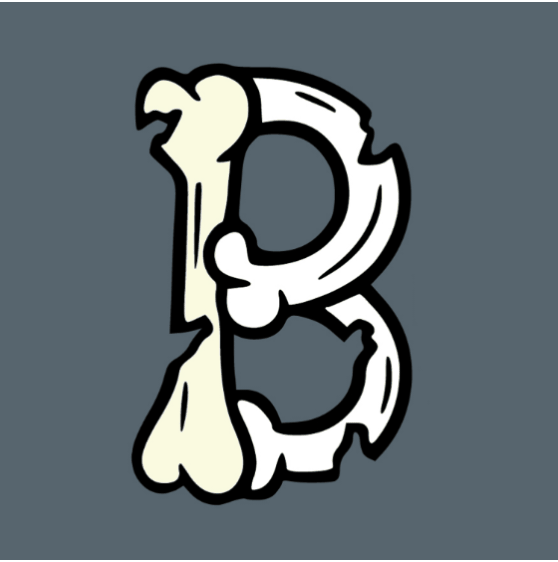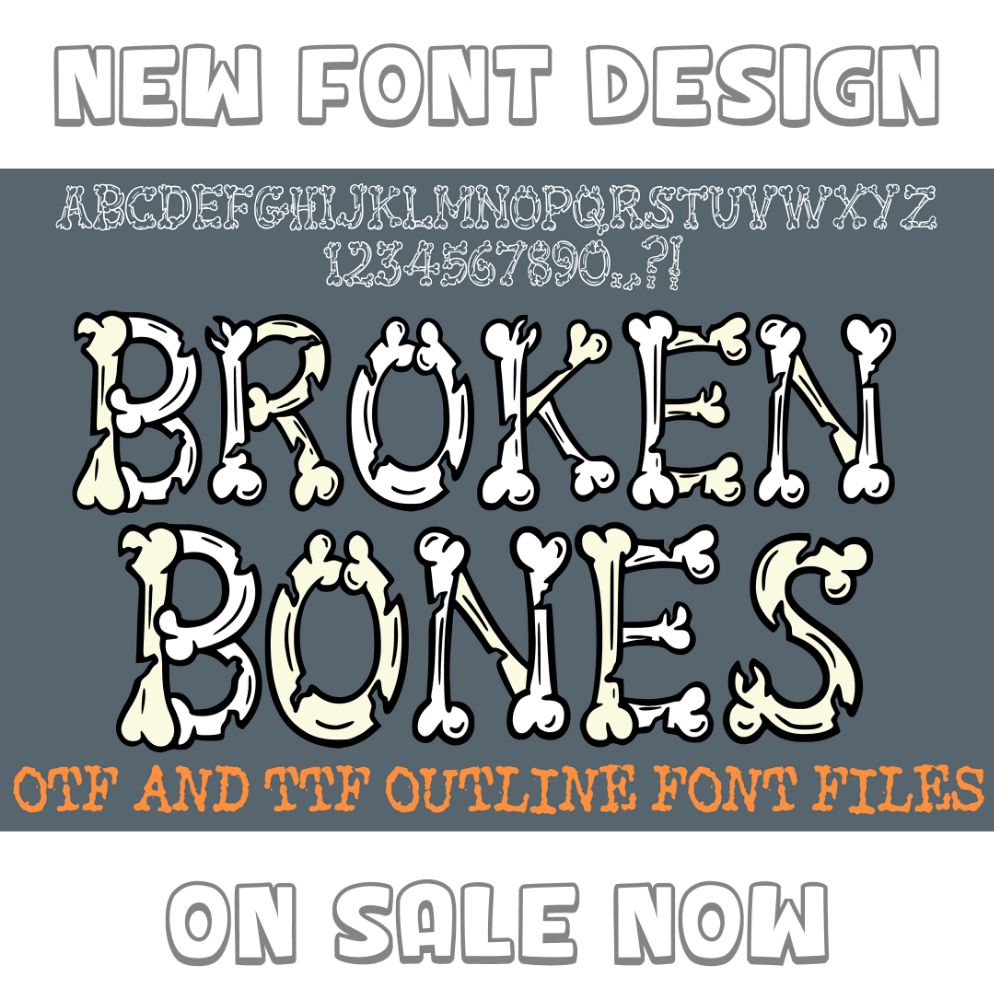
Halloween is JUST round the corner for us designers and creatives! I’ve been spooking it up with bone and scary font designs! Well, more cartoony than scary, but very fun! You can find this design, and more spooky fun at Design Bundles, Creative Fabrica and Teachers Pay Teachers